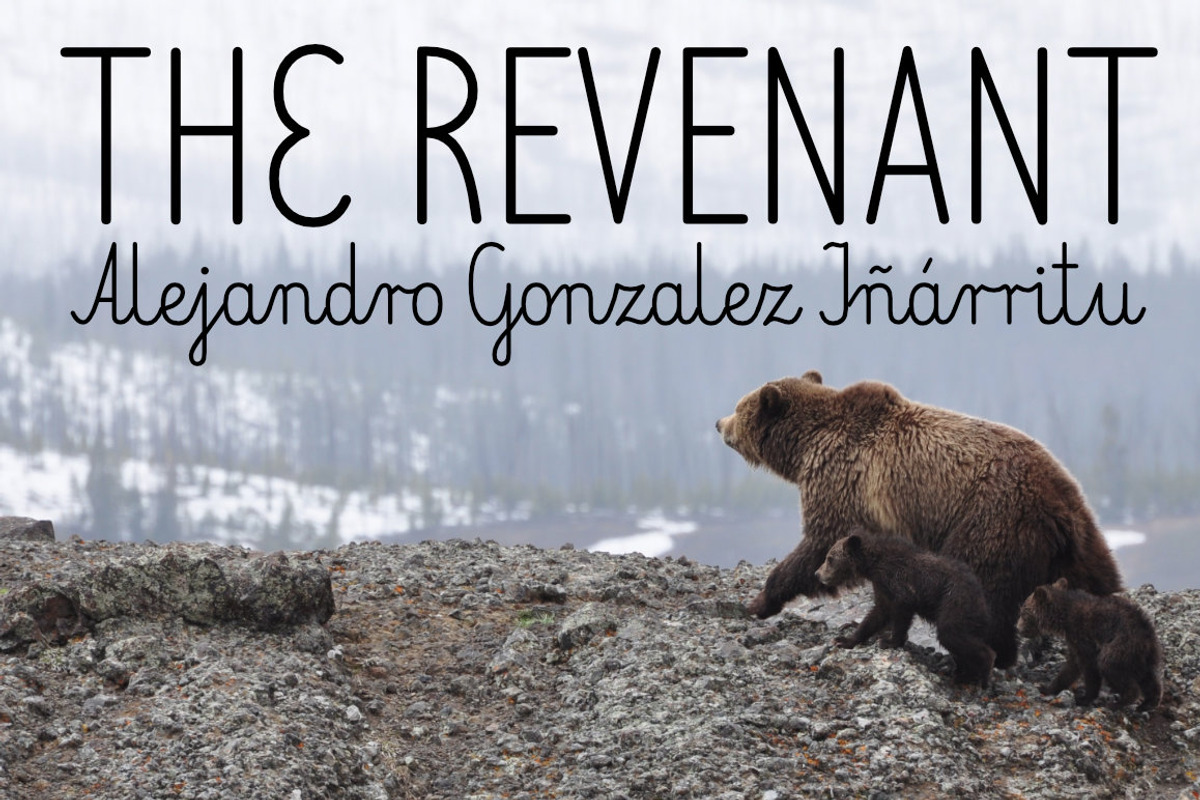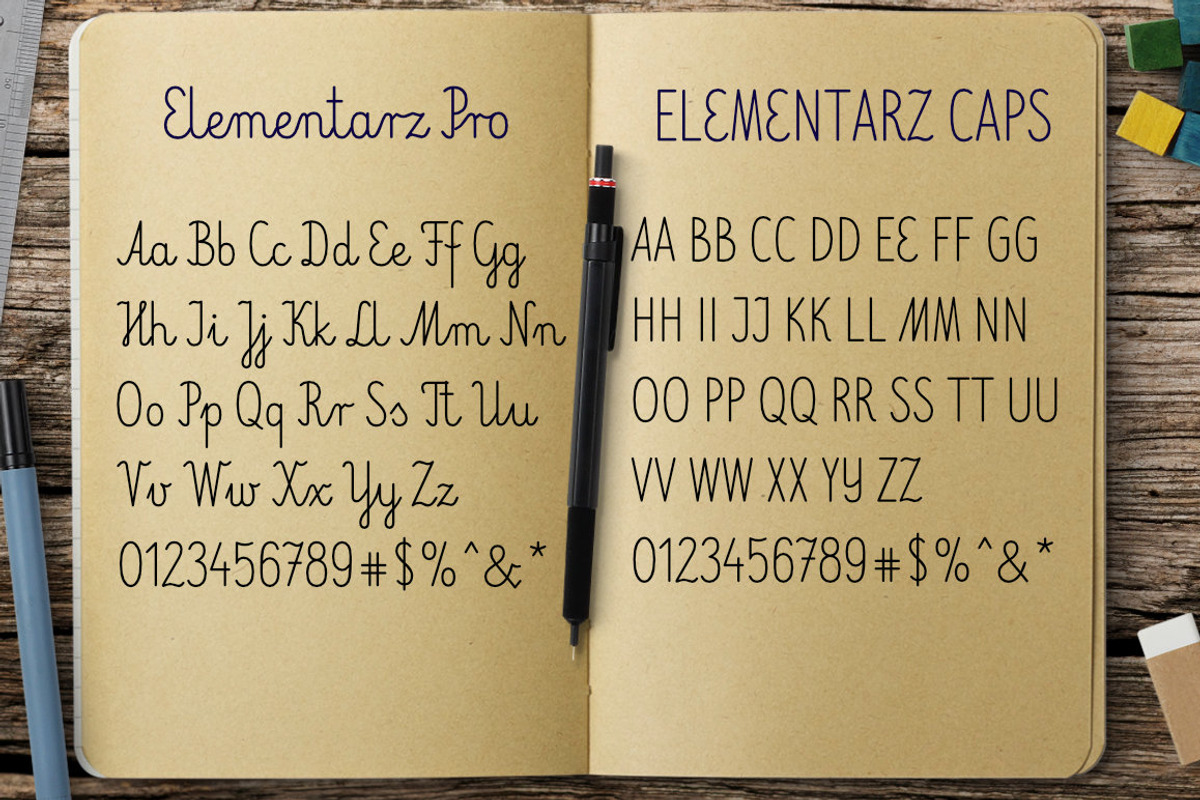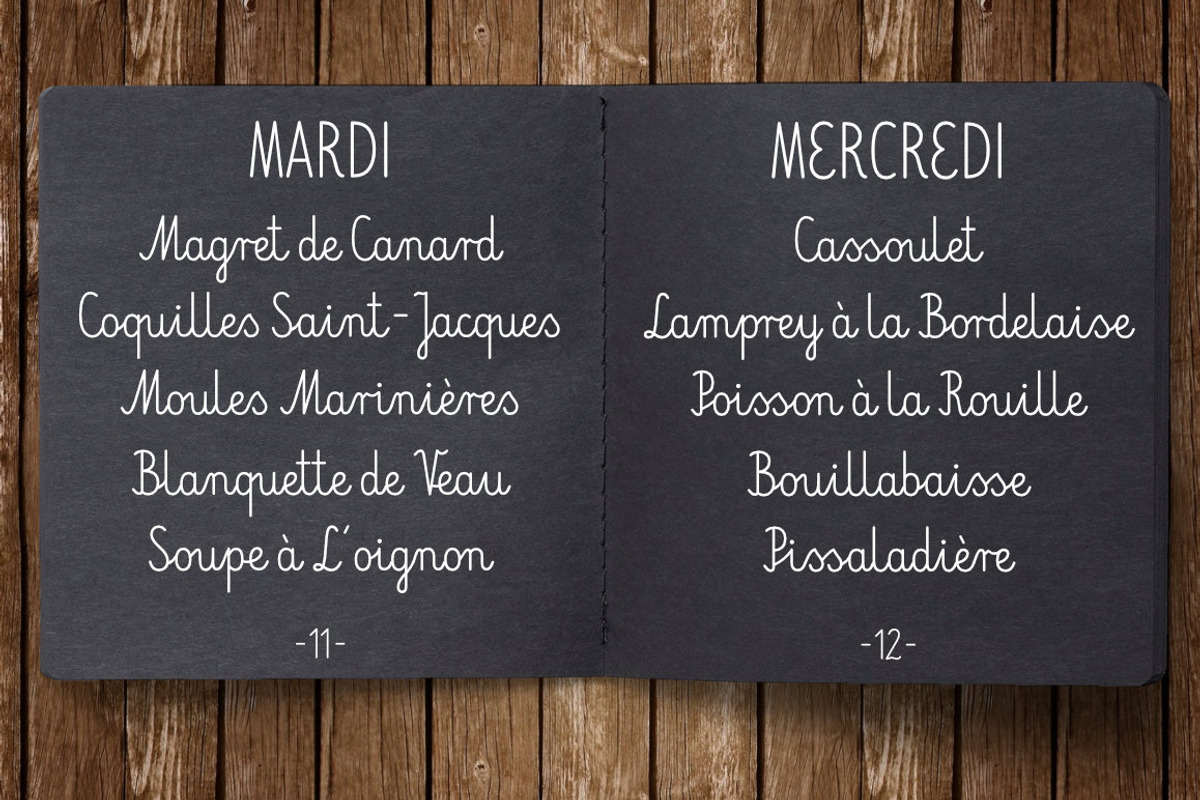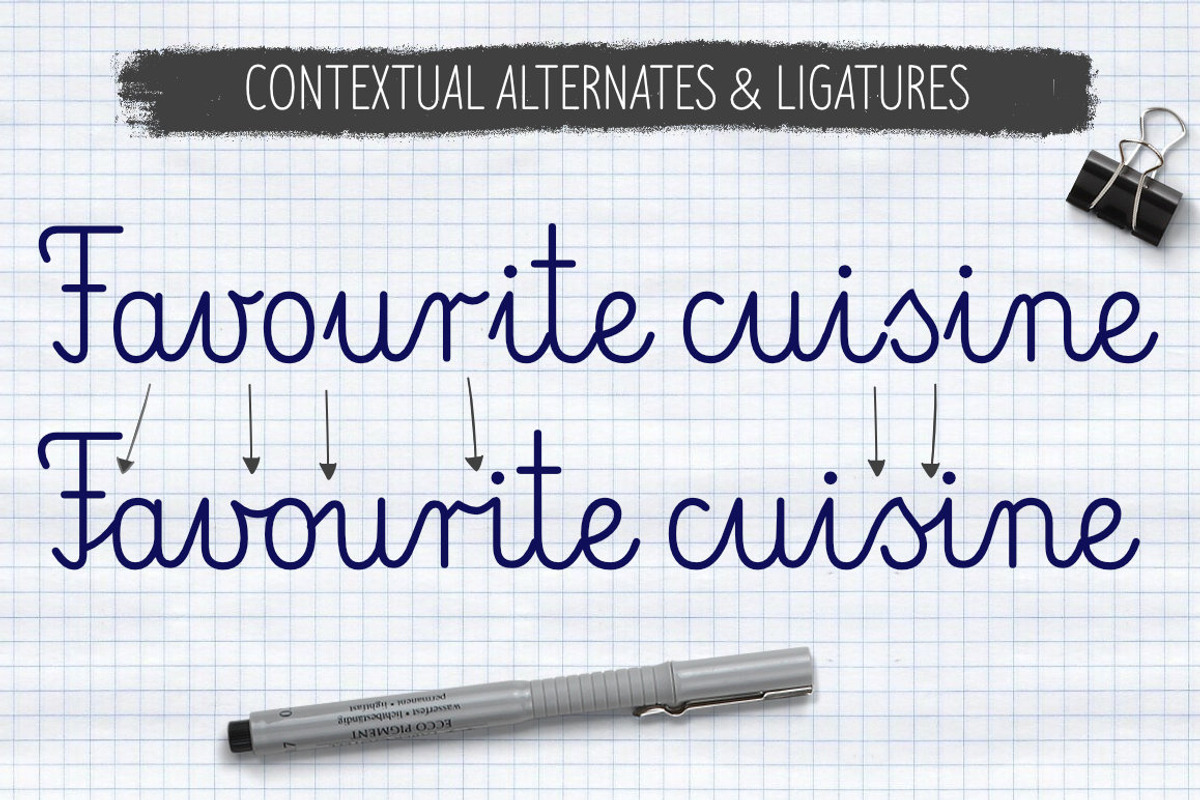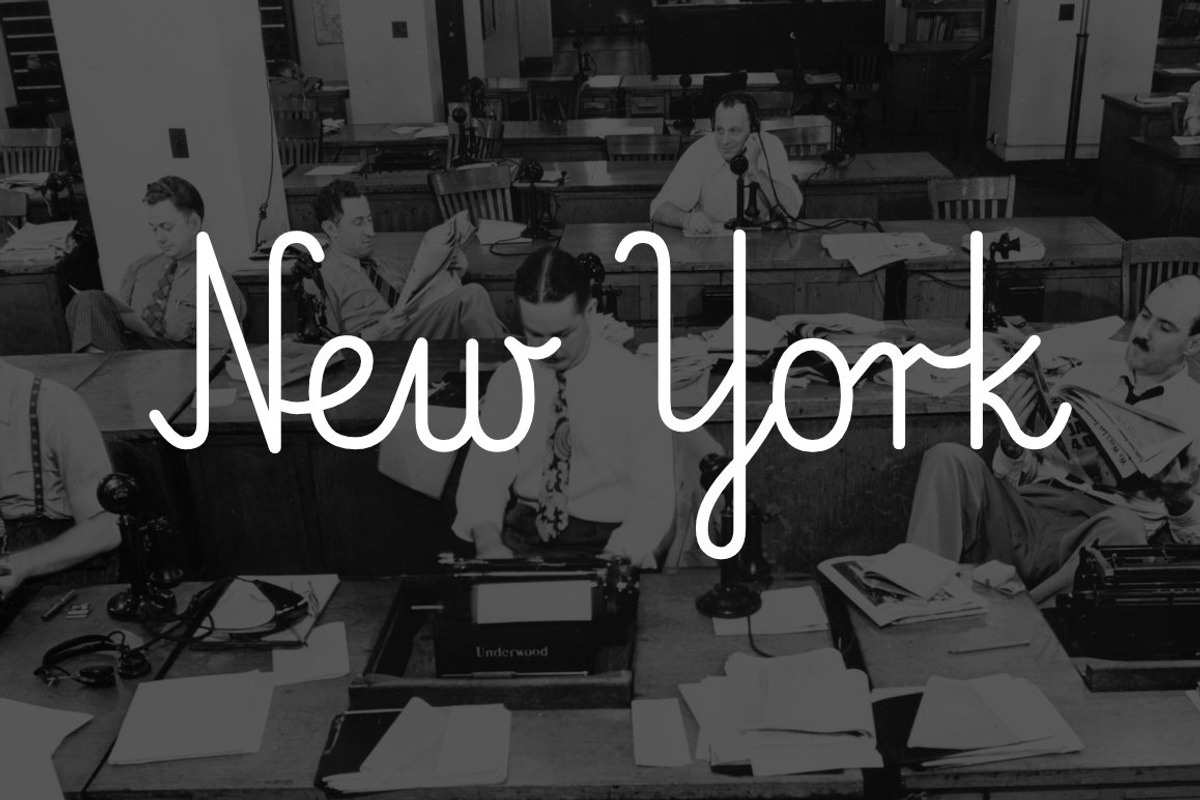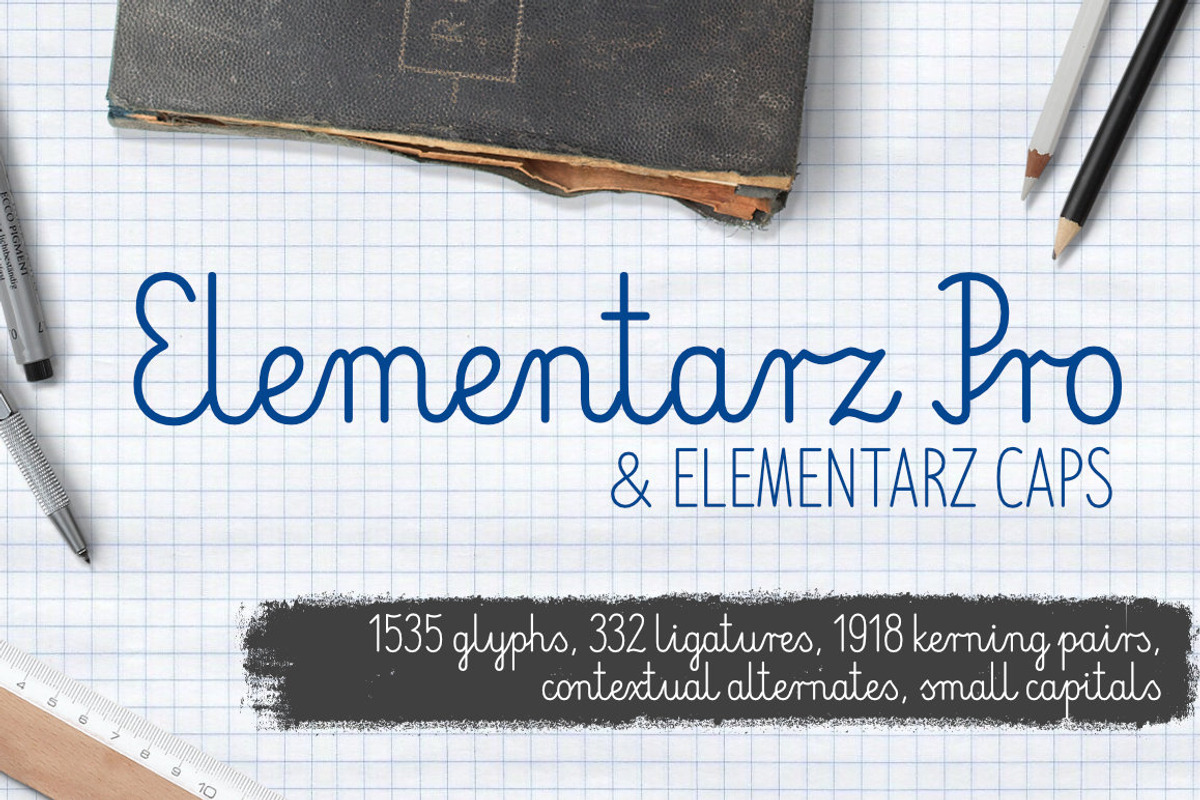
Elementarz Pro
Elementarz Pro is a handwritten, monoline, fully connected script with ligatures and contextual alternates to help with flow and readability.
Language support includes Western, Central and Eastern European character sets, as well as Baltic and Turkish languages.